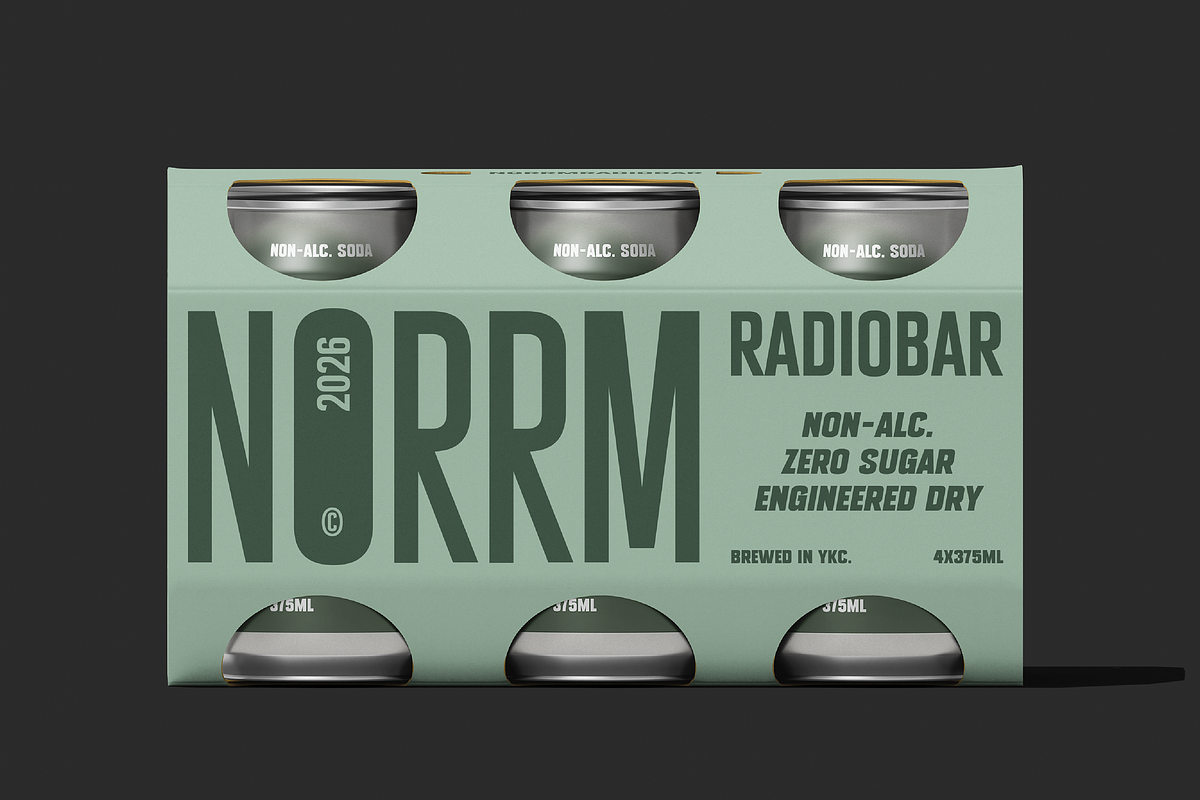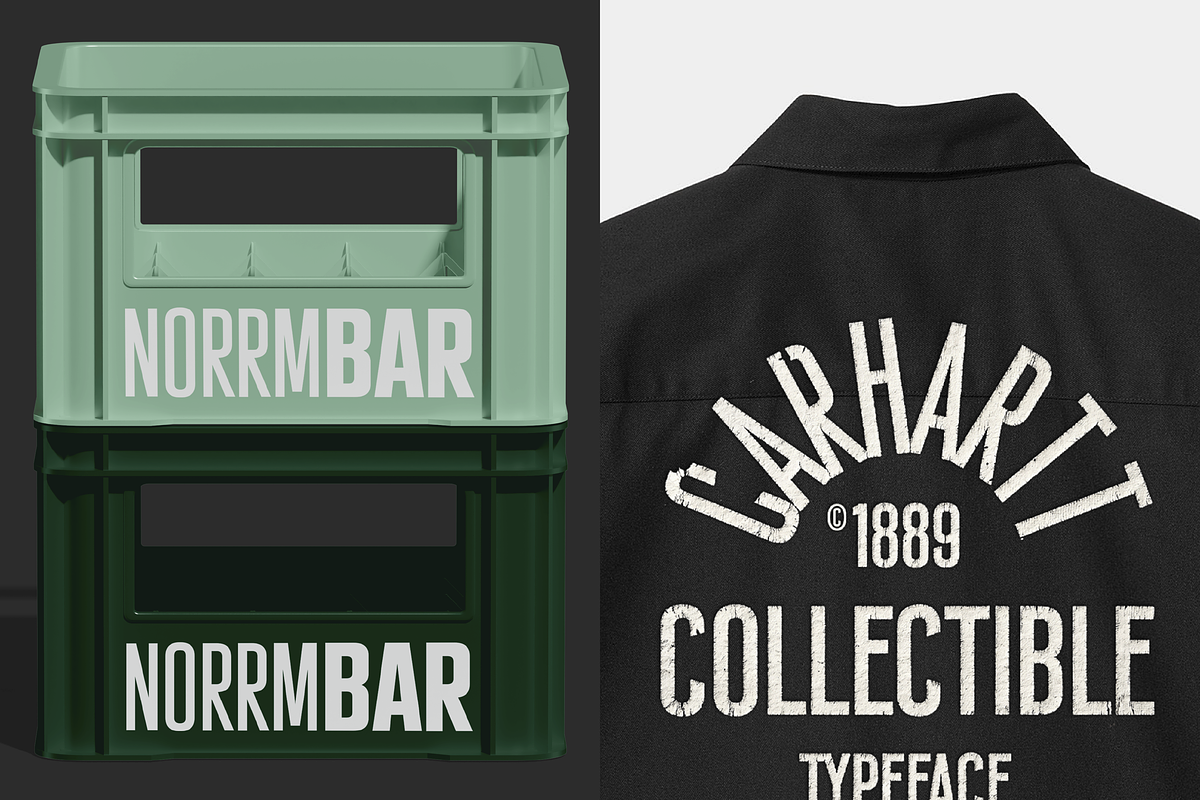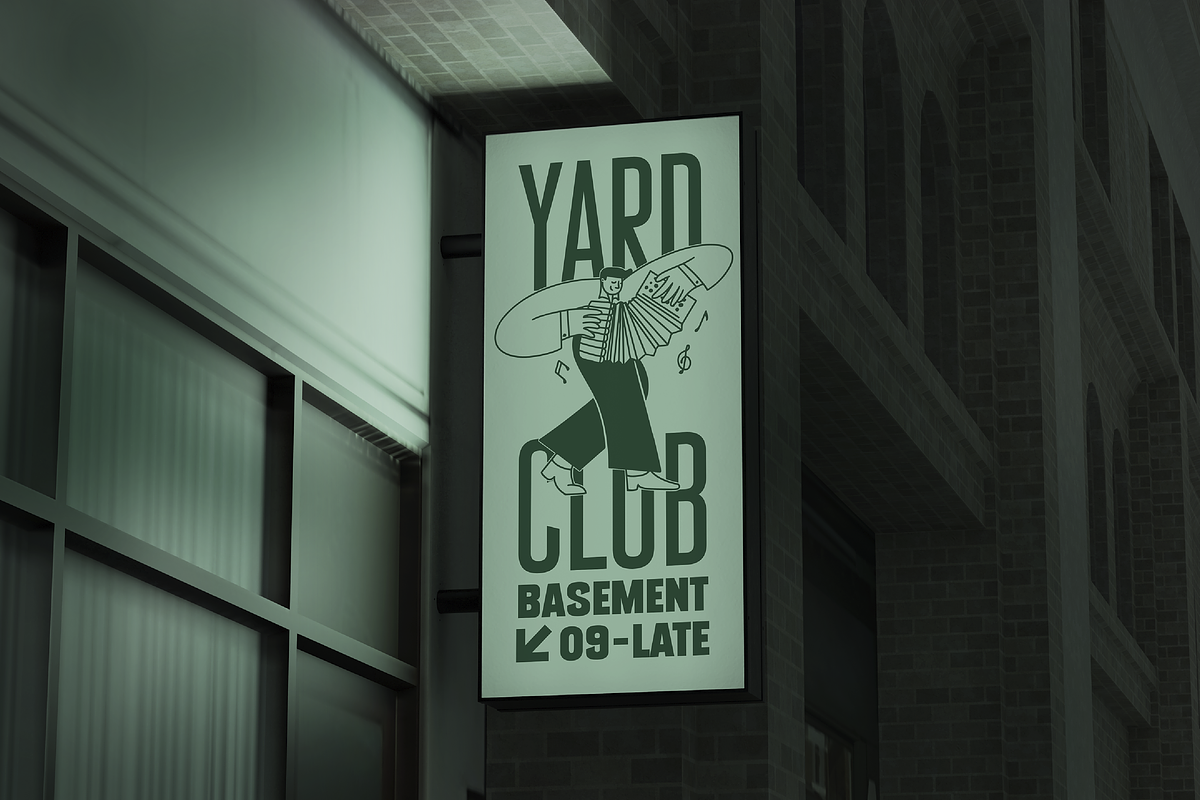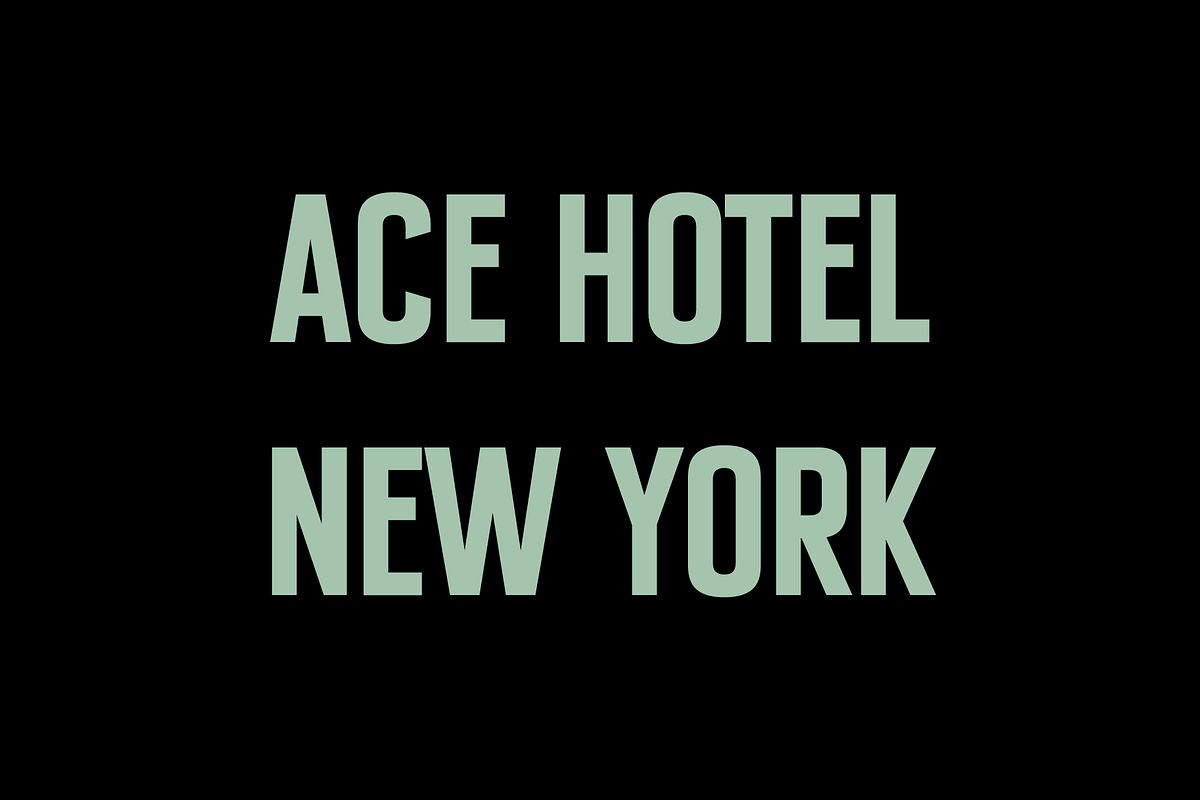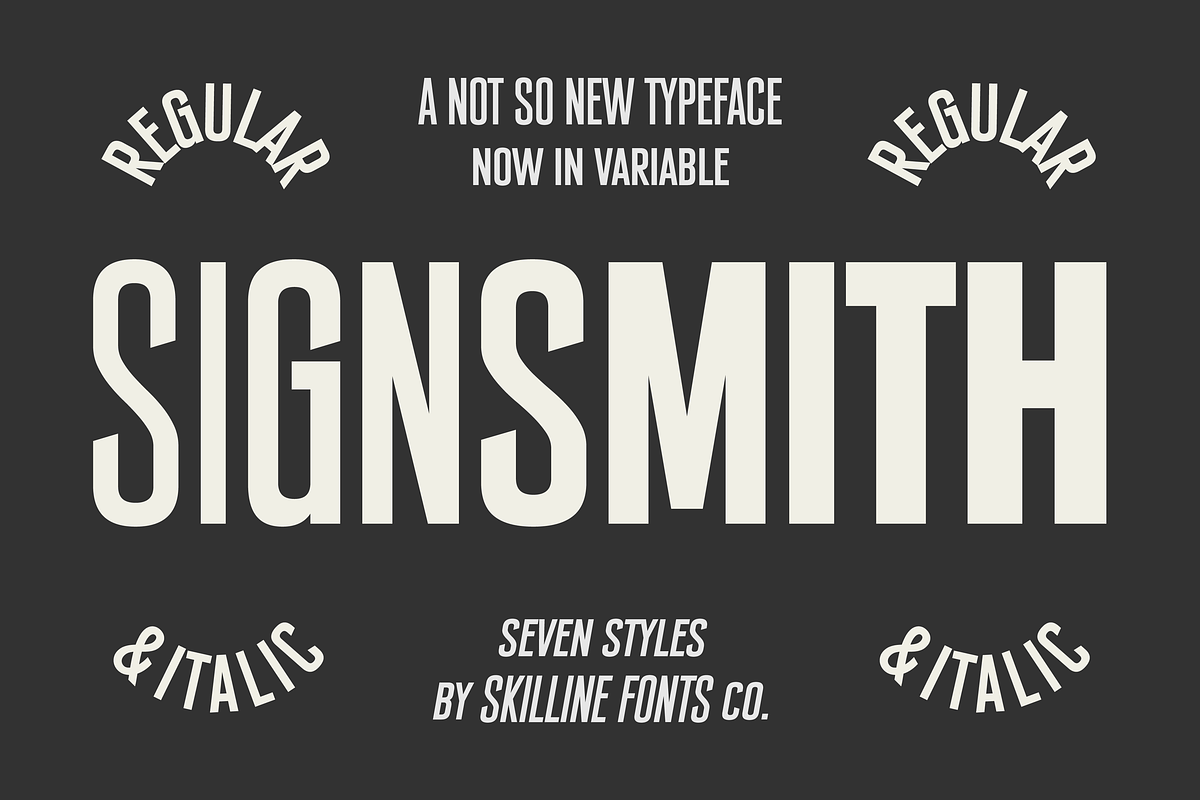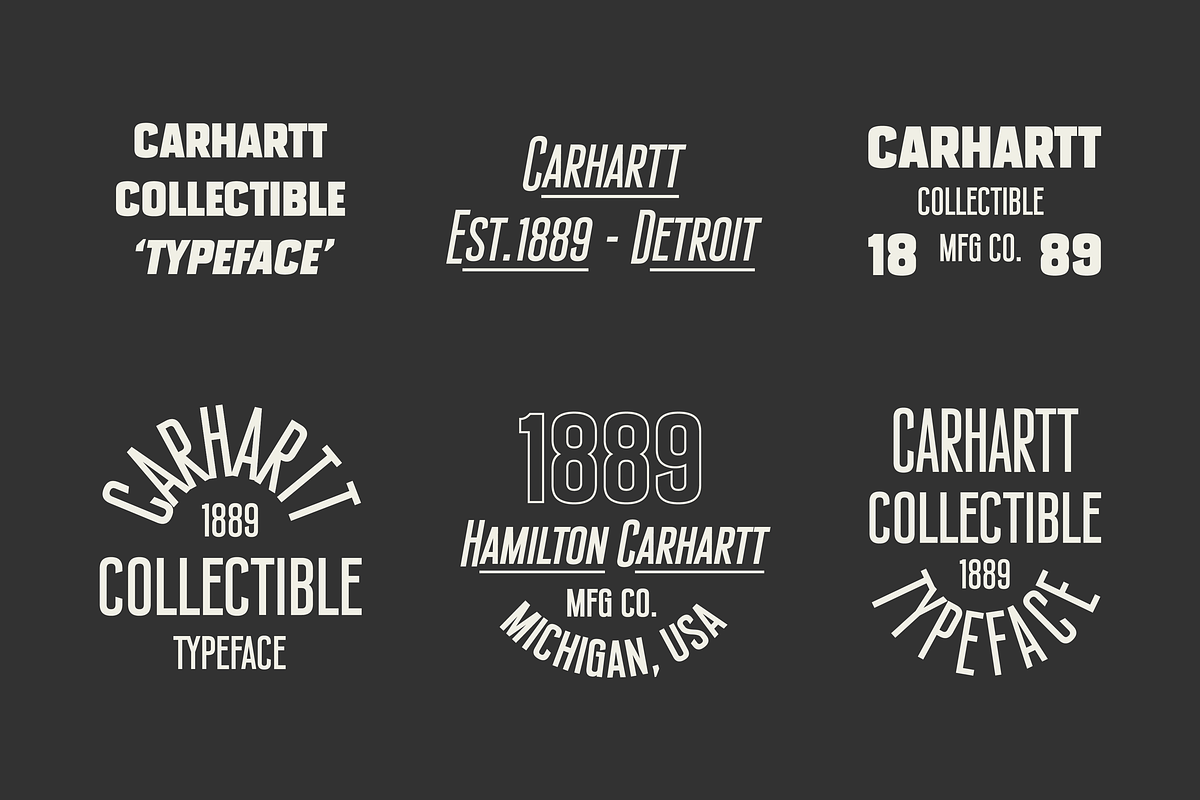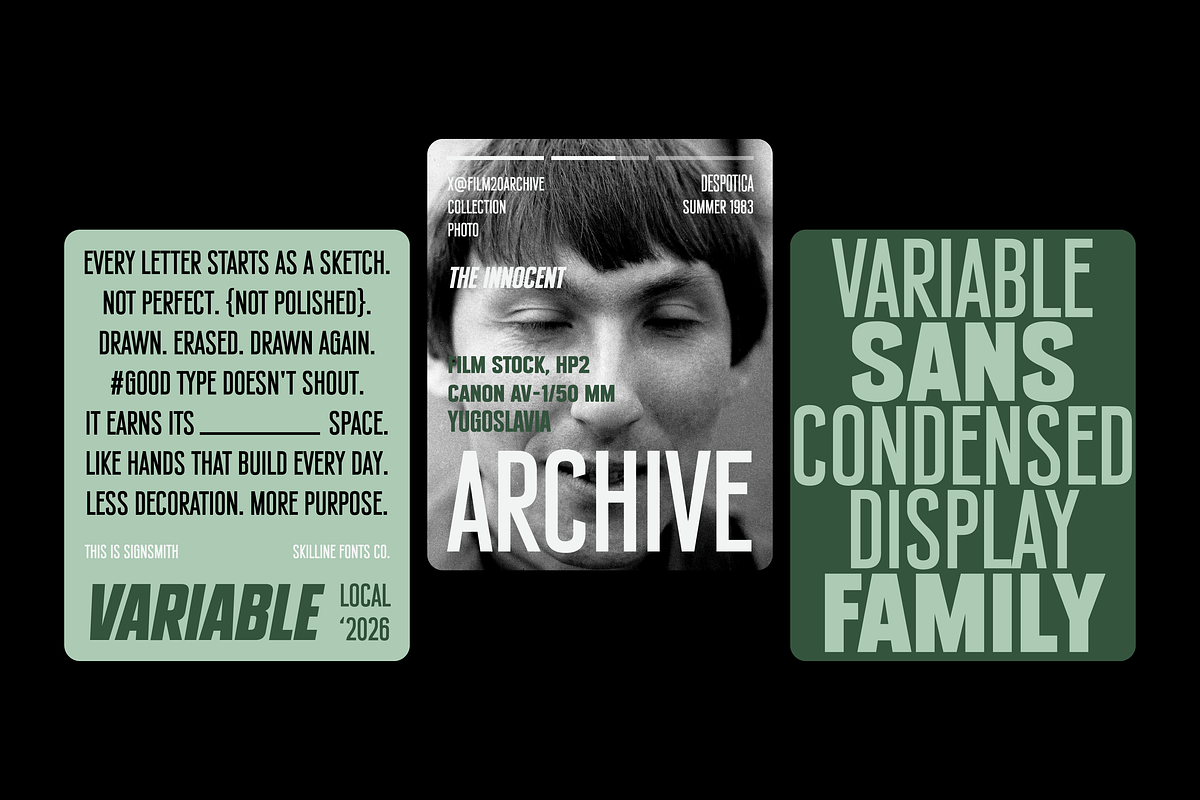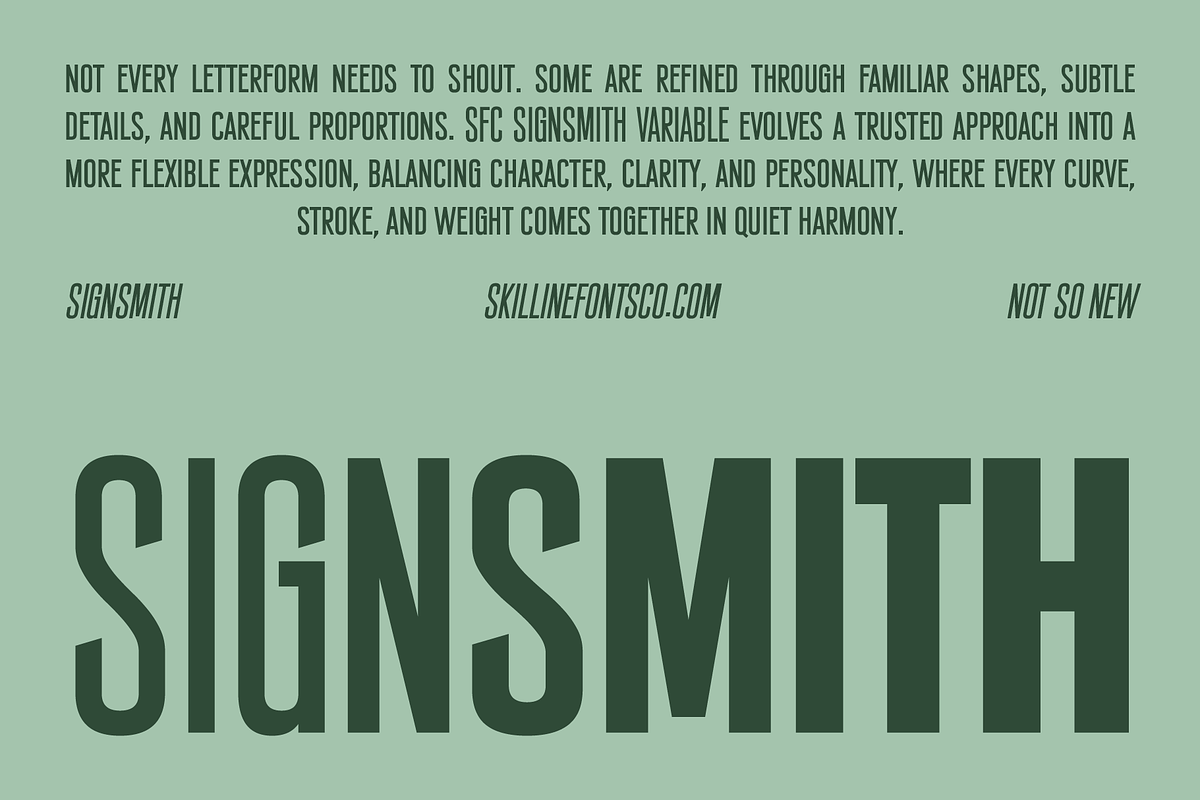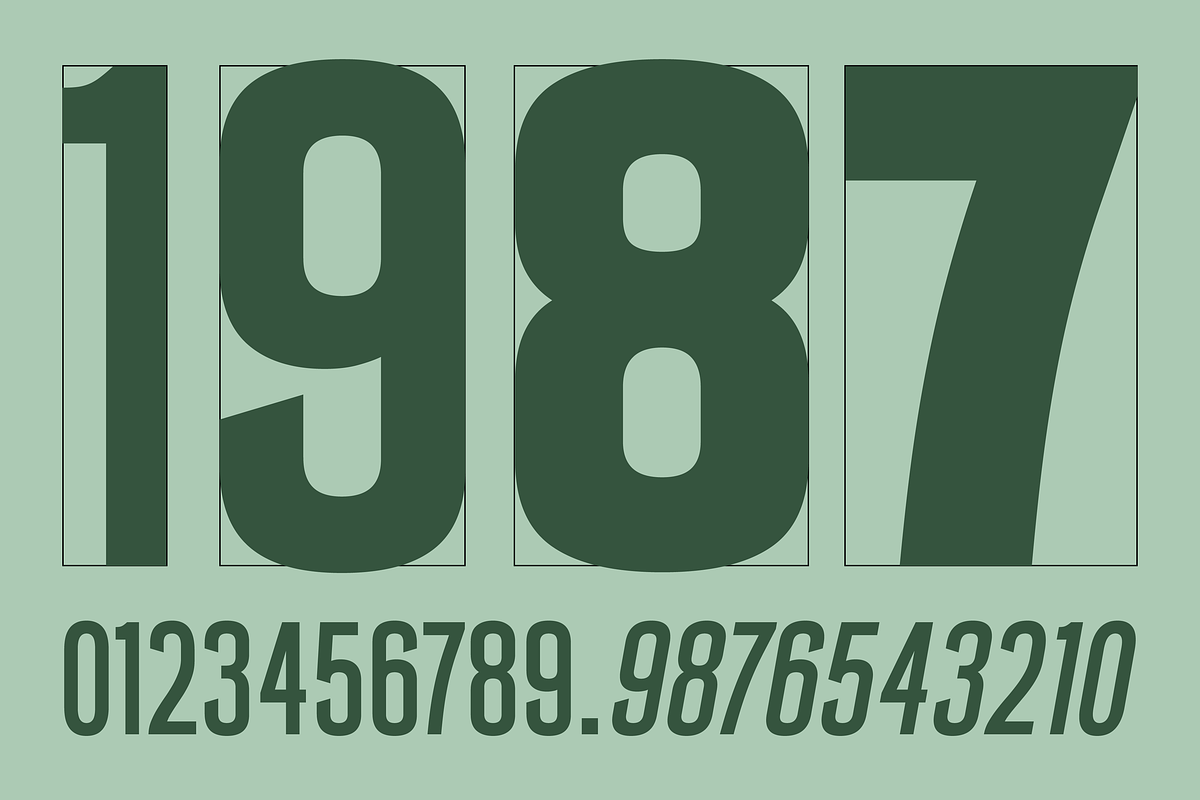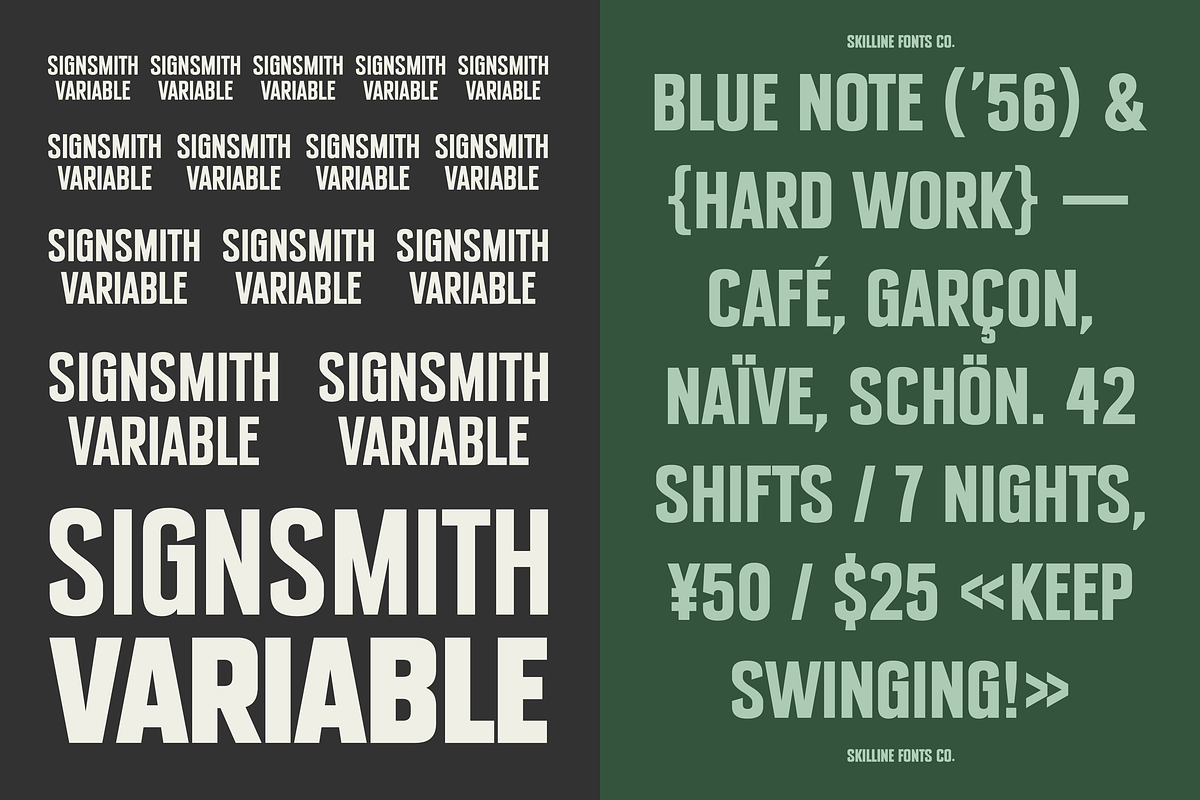
SFC Signsmith Variable Font
SFC Signsmith Family Variable is a refined evolution of our original Signsmith typeface — revisited, redrawn, and expanded into a more complete and versatile condensed sans serif family.
Originally inspired by signage lettering and sub-typeface aesthetics, Signsmith was created to capture the character of tall, narrow lettering found on old signs, storefronts, posters, and utilitarian graphics. For this new release, we kept the original spirit while refining the construction, proportions, curves, spacing, and overall rhythm to make the typeface cleaner, stronger, and more flexible.
The new Signsmith family includes seven weights from Light to Black, with matching italic styles and variable font support, giving you greater control across different sizes and applications.
Its tall and condensed structure makes Signsmith especially effective for branding, logos, posters, editorial design, packaging, signage, headlines, apparel graphics, and display typography.
Not a completely new typeface. Just a better Signsmith.
7 weights: Light, Regular, Medium, Semi Bold, Bold, Heavy, Black
Condensed sans serif with tall proportions and strong vertical character
Italic styles included across the family
Numerals, punctuation, symbols & extended Latin characters
Multilingual Latin support for a wide range of European languages